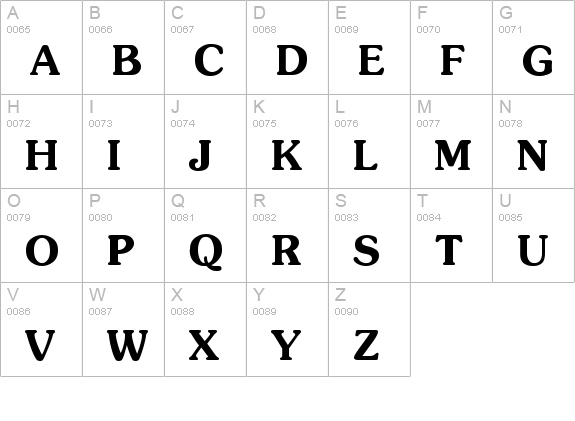
Souvenir-Light-Bold is a refined, elegant variant in the Souvenir typeface family \xE2\x80\x94 well suited to elegant body text, refined sub-headings, and luxury branding.
Souvenir-Light-Bold is a beautifully crafted font that exudes elegance and sophistication. With its sleek lines and bold presence, this font is perfect for creating impactful designs that demand attention. The versatility of Souvenir-Light-Bold allows it to be used for a wide range of projects, from branding to editorial design. What makes Souvenir-Light-Bold even more appealing is that it is available for free download at FontsMarket.com. This means that you can easily add this stunning font to your collection without any cost. Whether you are a seasoned designer or just starting out, Souvenir-Light-Bold is a must-have addition to your font library. Don't miss out on the opportunity to enhance your projects with this exceptional font, download it for free today at FontsMarket.com!